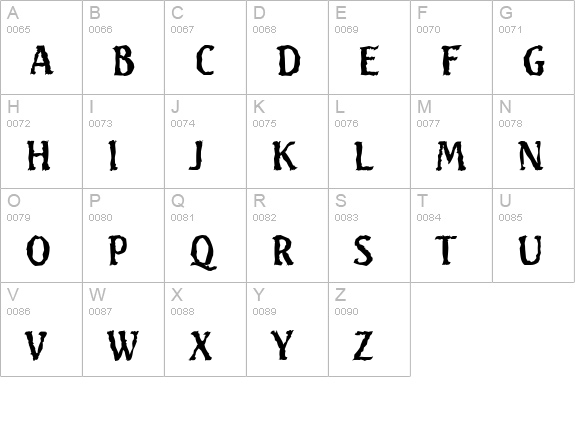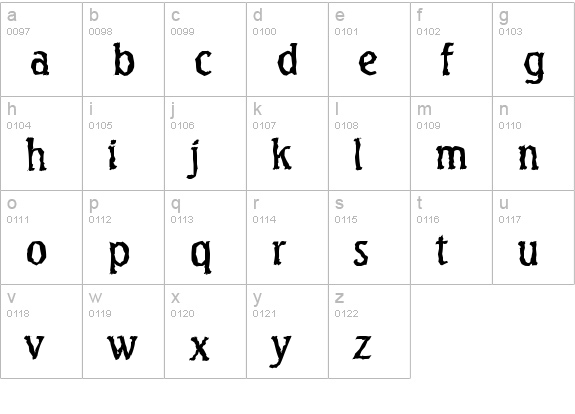
SeagullRandom-Regular is the standard, neutral variant in the SeagullRandom typeface family \xE2\x80\x94 well suited to general body text, paragraphs, and standard typographic work.
SeagullRandom-Regular font is a charming and whimsical typeface that adds a touch of playfulness to any design project. With its irregular and quirky letterforms, this font exudes a sense of spontaneity and creativity. Perfect for adding a unique flair to invitations, posters, logos, and more, SeagullRandom-Regular is sure to catch the eye and make a lasting impression. The best part? SeagullRandom-Regular font is completely free to download at FontsMarket.com. So go ahead and add this delightful font to your collection today and let your creativity soar!